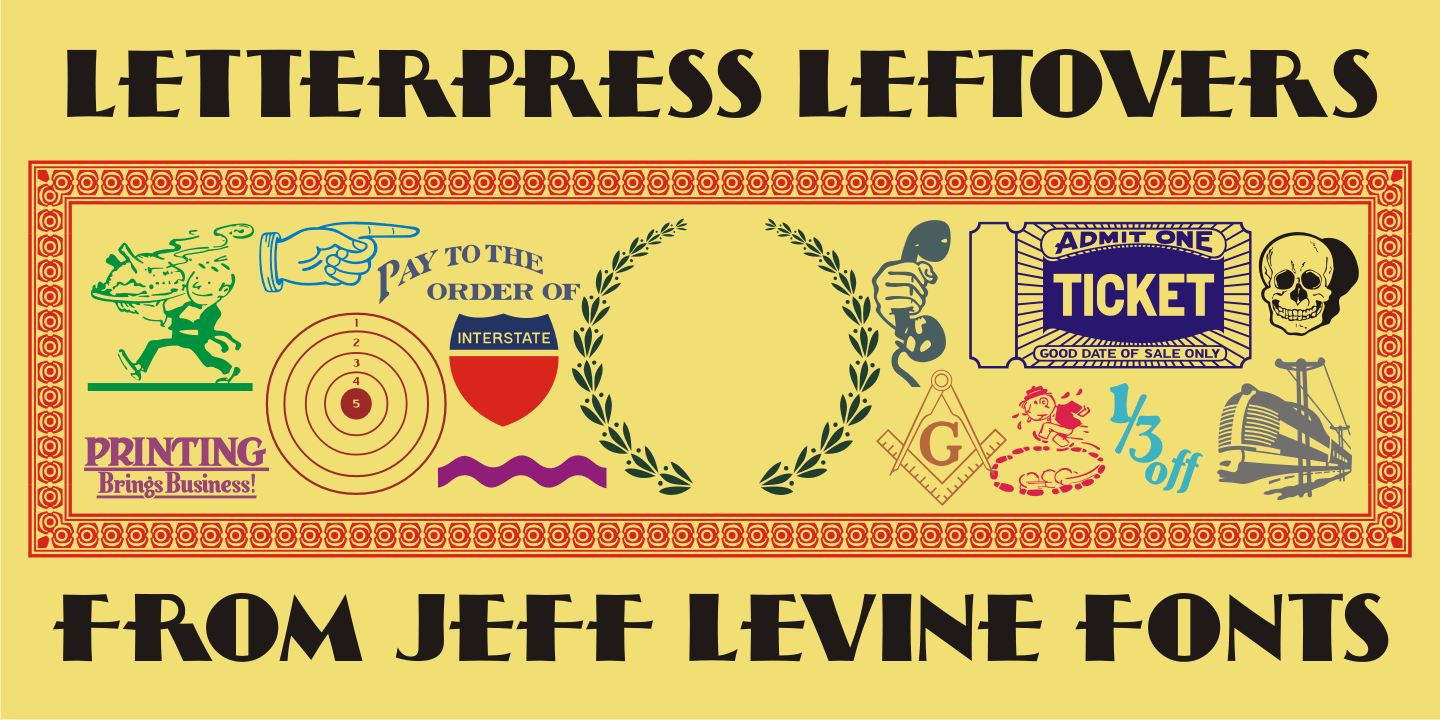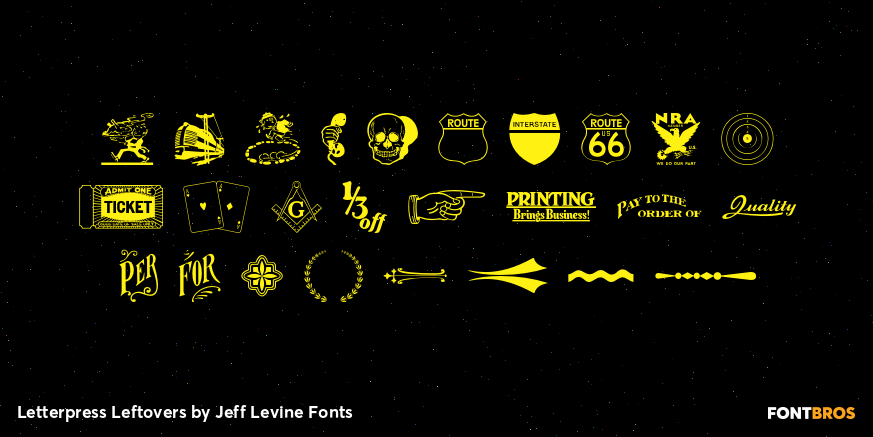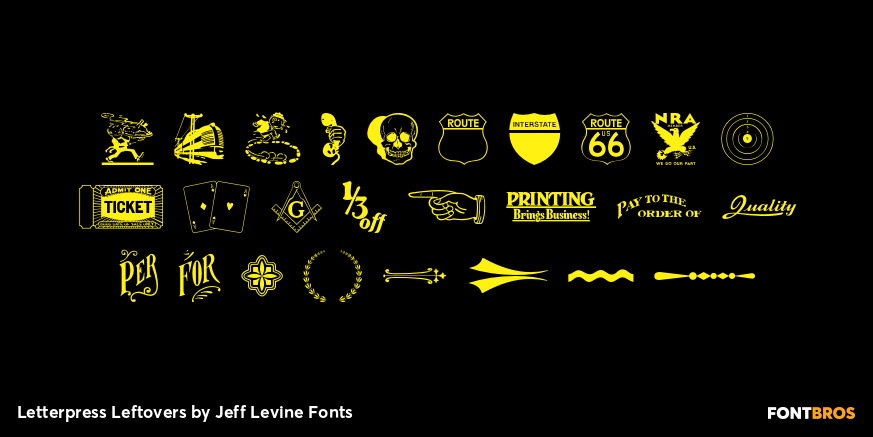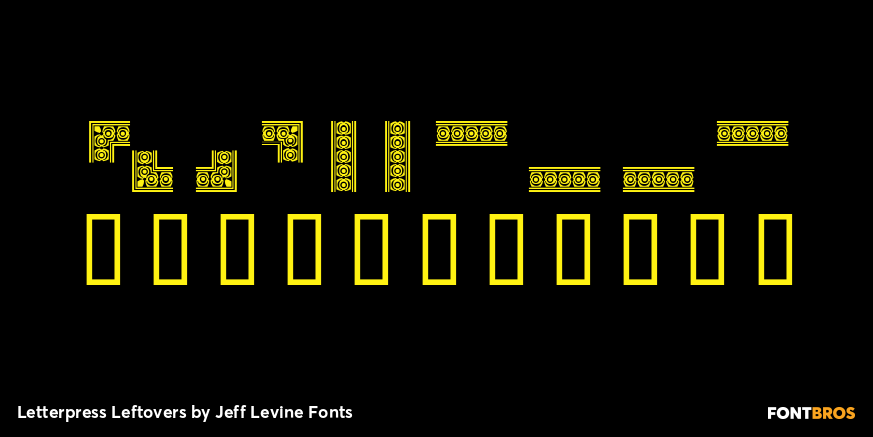
Letterpress Leftovers
Letterpress Leftovers JNL gathers twenty-six vintage letterpress cuts on a variety of themes as well as an attractive wood type border in various positions on the 0-9 keys.